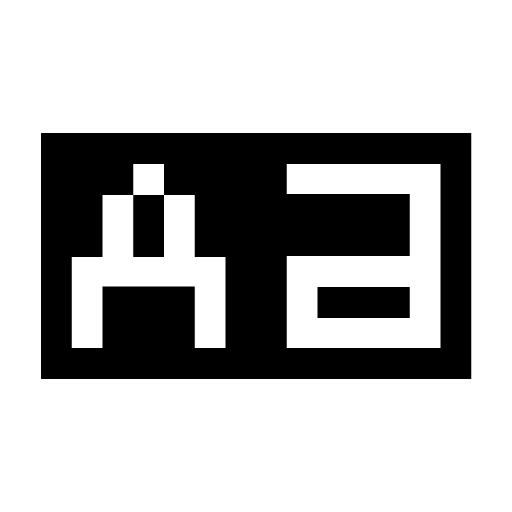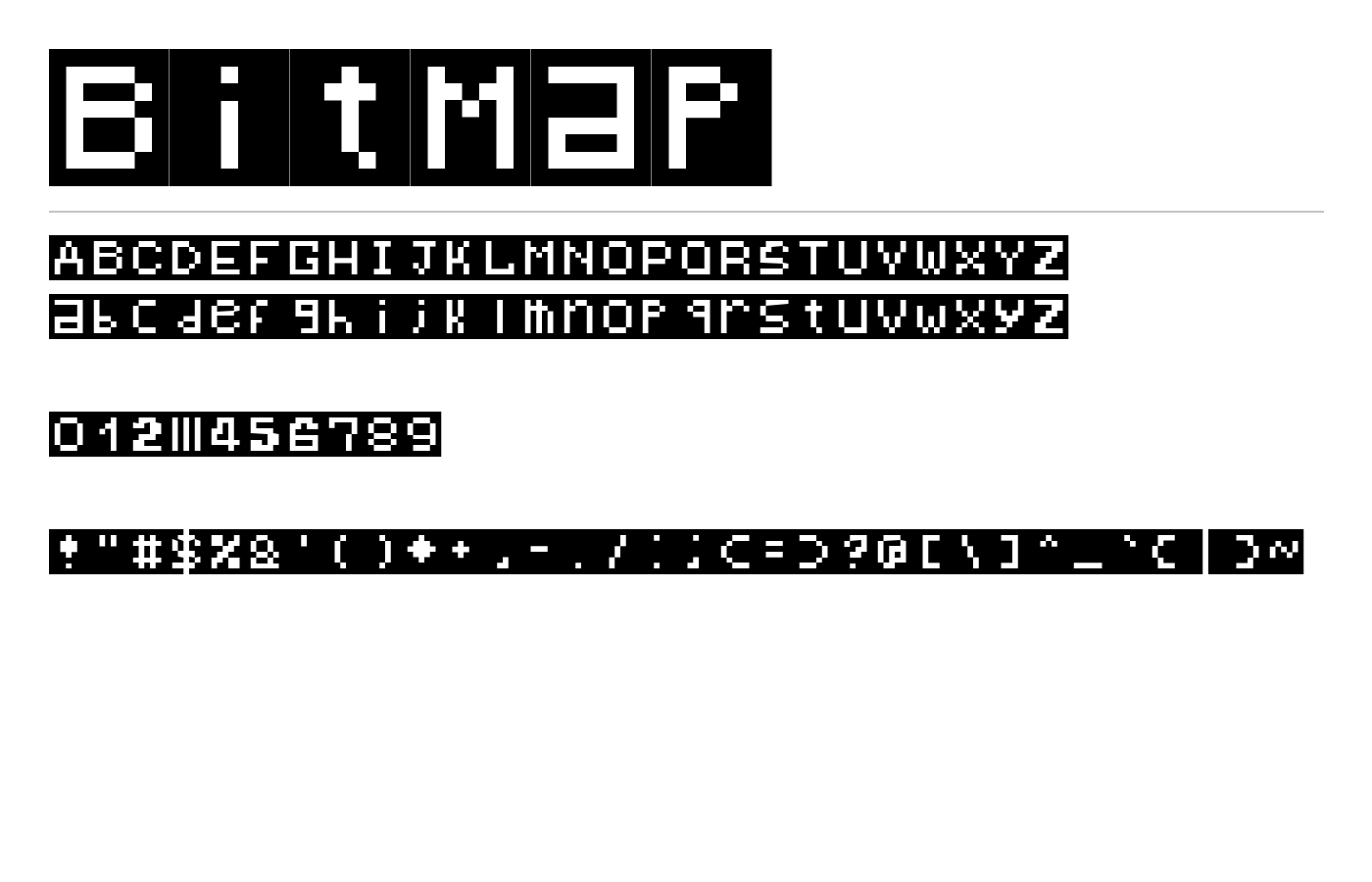
BitMap Font is a distinctive sans serif typeface characterized by its pixelated, blocky letterforms that echo early digital and retro video game aesthetics. Its consistent weight and monospaced style create a tech-inspired, nostalgic feel that works best for headlines, logos, and digital-themed designs where a bold, vintage computer vibe is desired. This font shines in creative projects that want to evoke the charm of classic 8-bit graphics while maintaining clear readability.
BitMap Font
About BitMap Font
| Font family | BitMap Font |
| Designer | 1n3 |